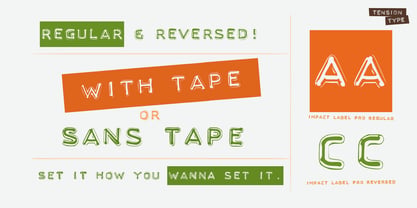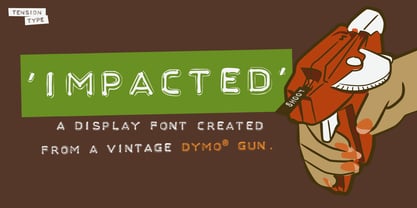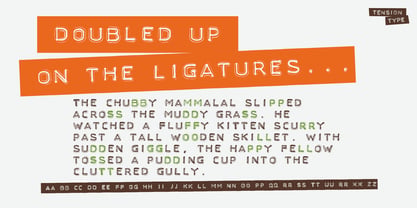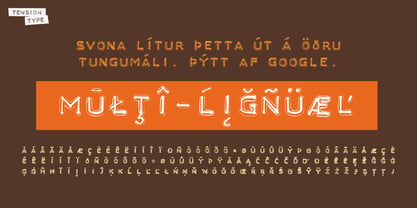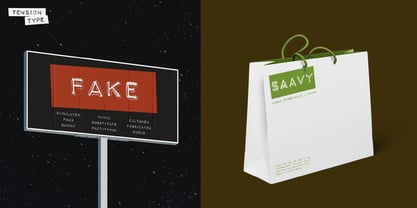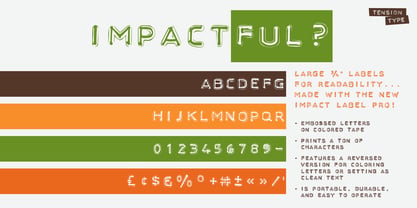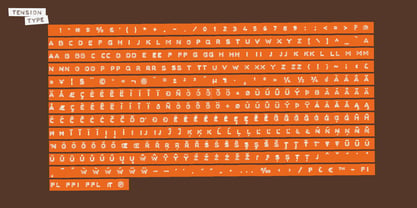
Labeled
by Tension Type
The Labeled Font Family was designed by Michael Tension and published by Tension Type. Labeled contains 2 styles and family package options. More about this family
With the popularity of one of my first designs, Impact Label, I created this new and improved version. The letters have been designed based on a very different vintage Dymo gun. The letterforms are much more square giving the typeface a more modern look. I took the time to add most of the Latin Pro characters and added the most common double Ligatures.
The release was delayed for 14 years because of a glitch with Adobe InDesign handling the double ligature (AA, BB, CC etc.). Indesign added an extra character space over top of the ligature. This is only a problem when you have a non-invisible character space, like this font has.
Now you can correct this bug of default paragraph engine miscalculating glyph widths. By swapping the engine forces InDesign to rebuild the text boundaries.